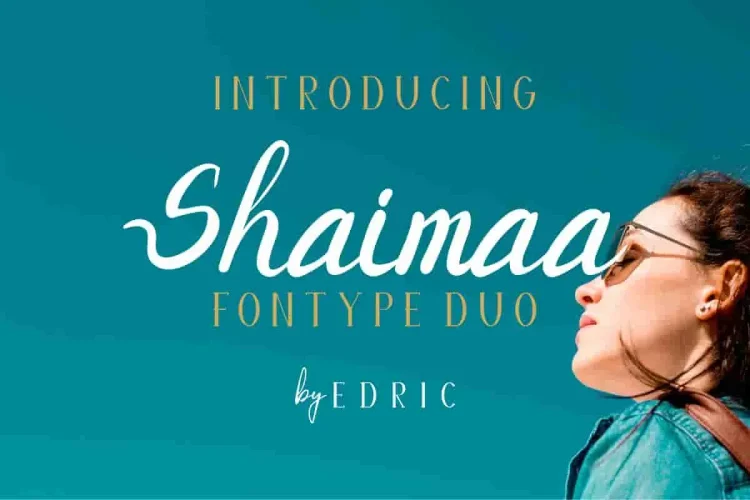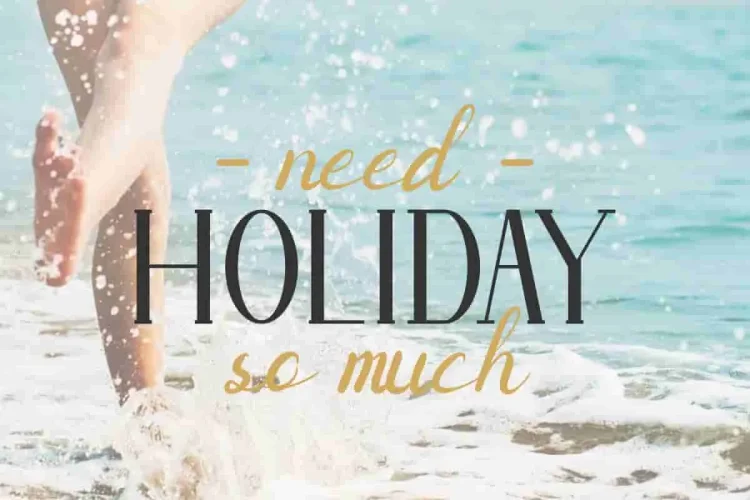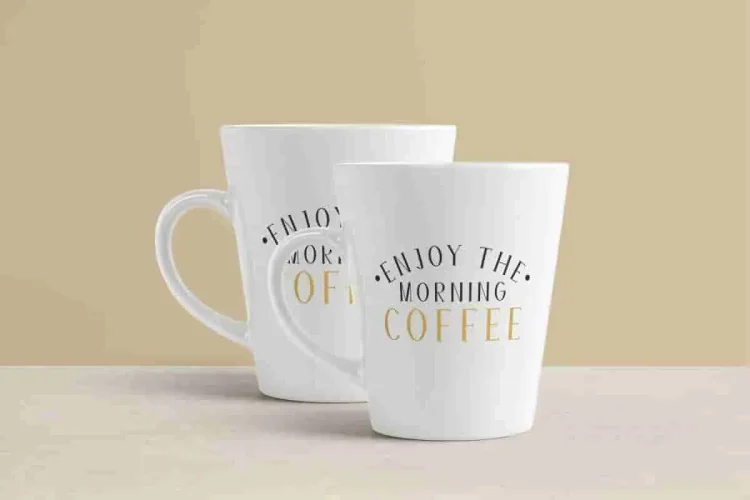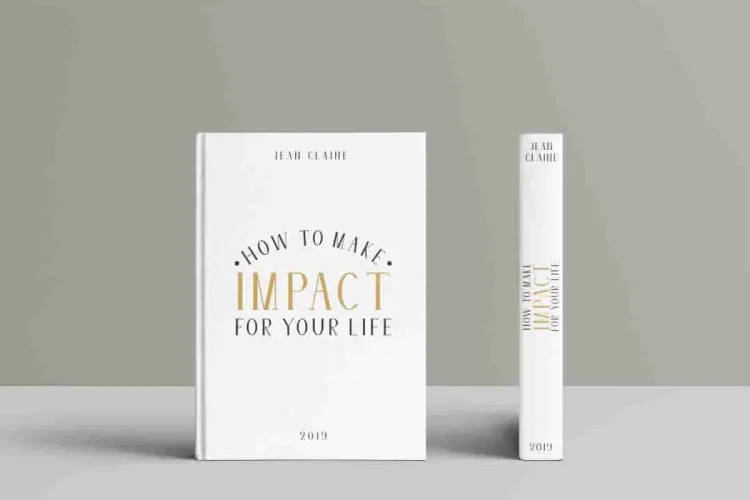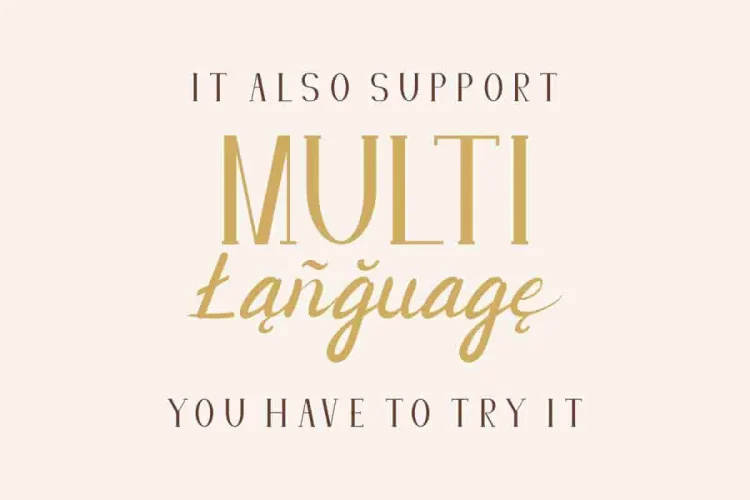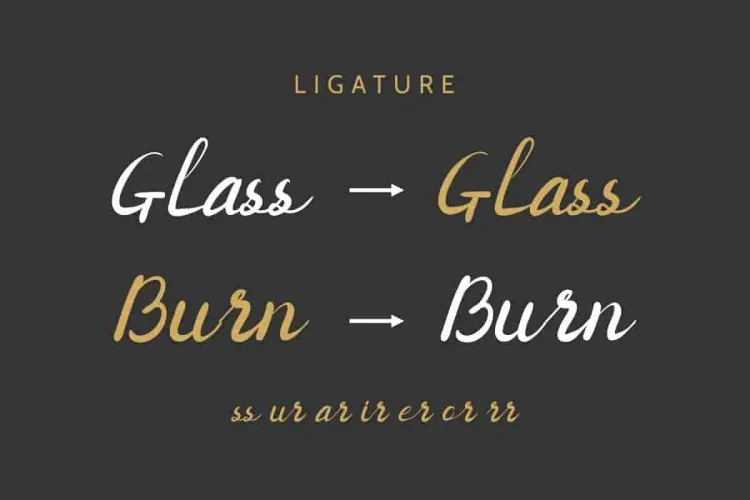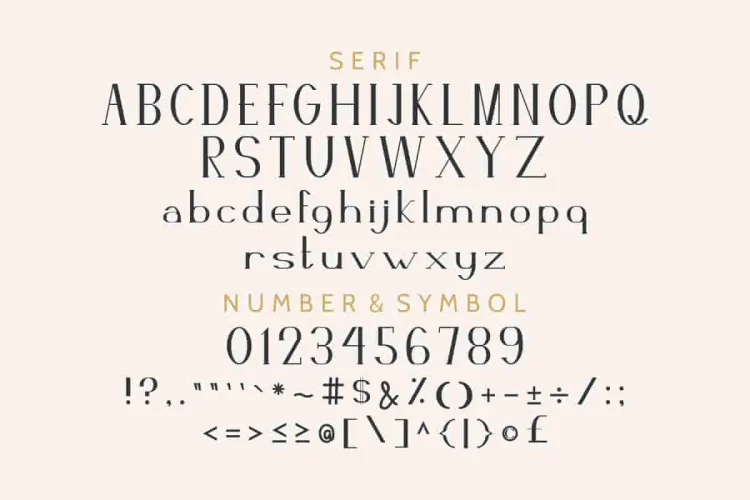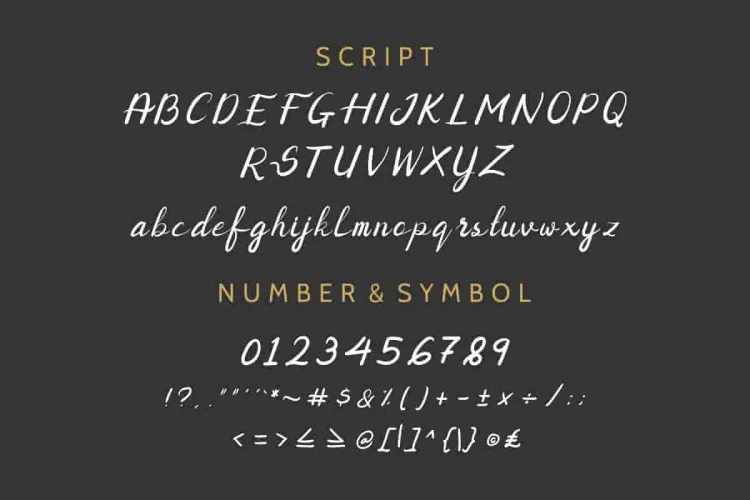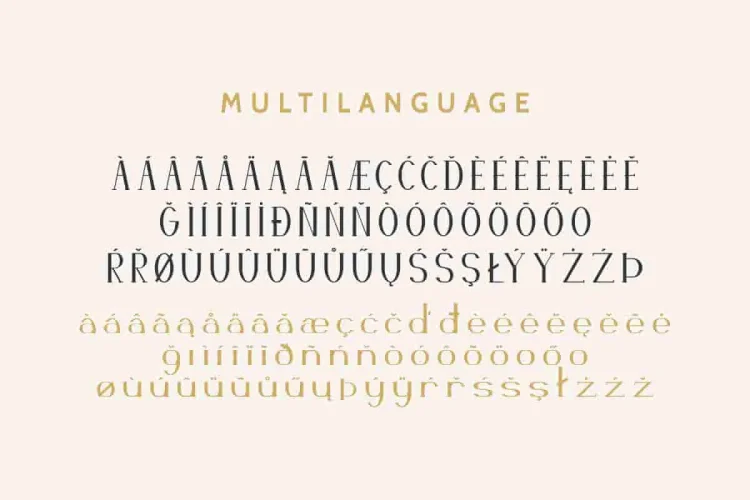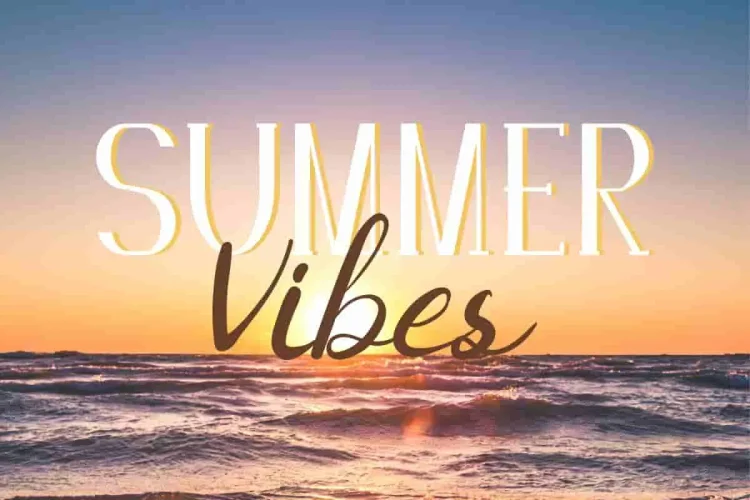
Shaimaa Elegant Fontype Duo
Let us introduce our newest font : Shaimaa ! This is a font duo : Regular serif and handwritten script. With this release, we crafted Shaimaa to make every design feel polished, classy, and expressive. Whether you’re creating a brand identity, logo, or social media graphic, Shaimaa adapts beautifully to various design needs.
What makes Shaimaa truly stand out is its versatile font pairing.
To begin with, it features two stunning styles in one package:
1. The first is Shaimaa Serif – A clean, modern sans serif that speaks elegance and professionalism.
2. On the other hand Shaimaa Script – A stylish handwritten font with graceful curves and natural flow.
Even better, Shaimaa includes beautiful ligatures that enhance the visual harmony of your text. As seen in the preview, combinations like “ss”, “ur”, “ar”, “er”, and more, create smoother, more natural strokes. It also supports multilingual characters, so your message can shine globally.
Shaimaa is great. Use it confidently for branding, logo, stationery, business card, signage, flyer, brochure etc.
In fact, many industries that are suitable for this font : construction, real estate, services, law firm, wedding, makeup artist, photographer, clothing etc